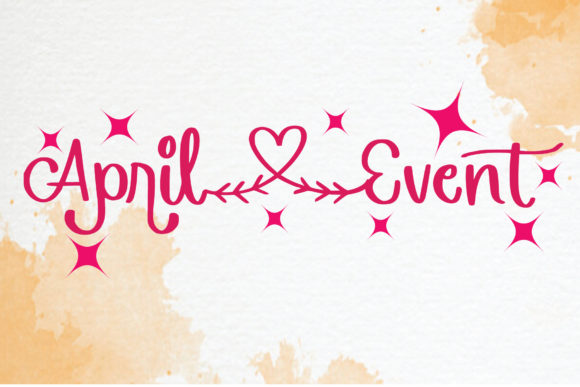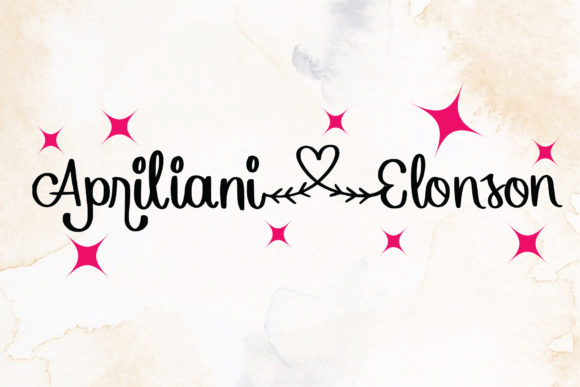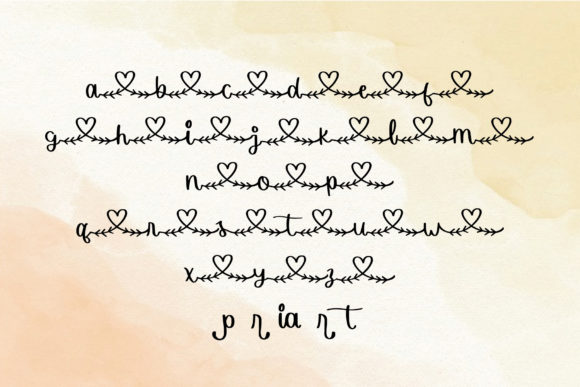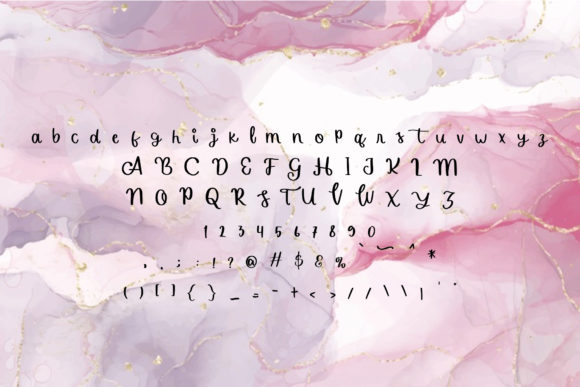
Bring Your Creativity to Life with Celebrate Event Font
Do you remember that moment when a spark of creativity struck, and your next big project idea was born? You sat down at your desk, pen in hand, and the words started flowing effortlessly. It’s a feeling that never gets old, and with the right tools, it can happen every time.
Meet Celebrate Event Font, the perfect companion for your creative endeavors. This beautiful, handwritten font is designed to evoke a sense of warmth, romance, and joy. Whether you’re designing a wedding invitation, a birthday card, or a marketing campaign, Celebrate Event Font will help bring your vision to life. Its flexibility and versatility make it an invaluable asset for designers, allowing them to experiment and push the boundaries of their creativity.
So, why settle for a generic font when you can celebrate your creativity with Celebrate Event Font? This charming font will add a personal touch to your projects, making them stand out from the crowd and leaving a lasting impression on your audience.
Celebrate Event Font Key Features
- Font Family: Celebrate Event Font is a unique, hand-drawn font designed to evoke the feeling of celebration and joy.
- Character Count: The font contains over 250 characters, including uppercase and lowercase letters, numbers, and special characters.
- Unique Characteristics: Celebrate Event Font features a hand-drawn, whimsical design with bold lines, subtle texture, and a touch of elegance, making it perfect for event invitations, posters, and social media graphics.
Review of Celebrate Event Font
First off, I have to say that I’m impressed with the whimsical and playful vibe that the Celebrate Event Font brings to the table ✨. The font’s unique blend of cursive and serif elements makes it perfect for event invitations, wedding stationery, or any other occasion that requires a touch of elegance and sophistication. The font’s versatility is also a major plus, as it can be used for a wide range of applications, from formal events to casual get-togethers.
However, there are a few limitations to consider ⚠️. For one, the font may not be the best choice for text-heavy content, as the cursive elements can make it difficult to read at larger font sizes. Additionally, the font’s unique style may not appeal to everyone’s taste, and some users may find it too flashy or overwhelming.
- ✨ Unique and playful design that’s perfect for events and celebrations
- ✨ Versatile and can be used for a wide range of applications
- ⚠️ May not be suitable for text-heavy content
- ⚠️ May not appeal to users with more conservative design tastes
Overall, I’d say that the Celebrate Event Font is a great choice for designers who want to add a touch of whimsy and personality to their projects. While it may have its limitations, the font’s unique design and versatility make it a valuable addition to any designer’s toolkit.
Tips for Getting the Most Out of Celebrate Event Font
Use Celebrate Event Font for:
- Party and event announcements
- Graduation and birthday invitations
Remember to pair Celebrate Event Font with bold and elegant graphics to create a cohesive and celebratory design.